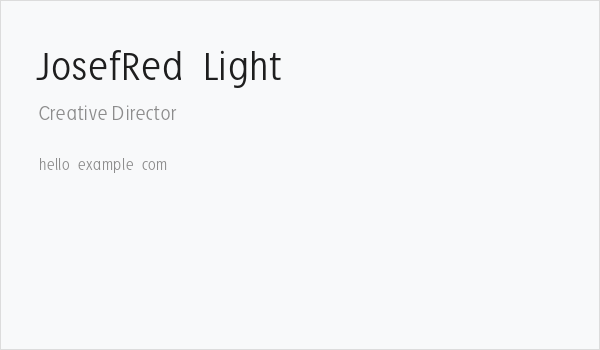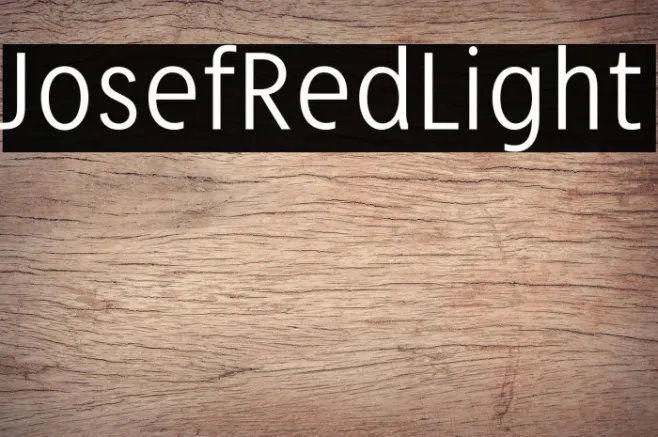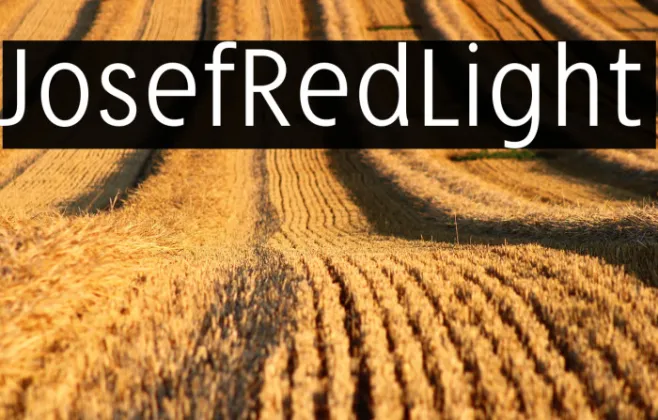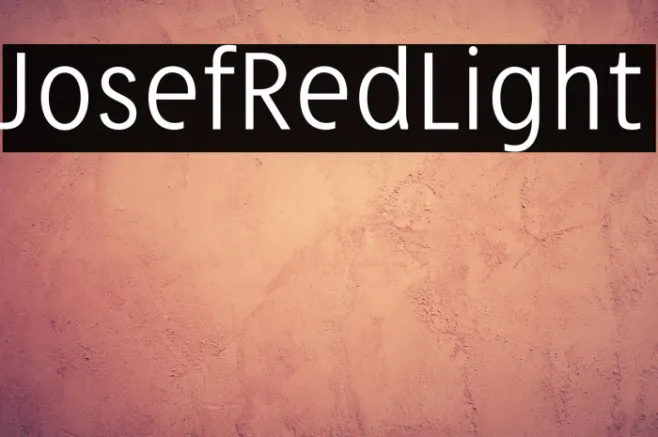
JosefRed-Light Font
JosefRed-Light Description
This typeface features a clean, modern sans-serif design with a light weight, making it ideal for a variety of applications. The characters are evenly spaced with a normal width, providing excellent readability. The strokes are consistent in thickness, offering a low contrast appearance that enhances its minimalist aesthetic. The uppercase and lowercase letters maintain a uniform style, with rounded edges that add a touch of softness to the overall look. This font is versatile and can be used effectively in both digital and print media, ensuring clarity and elegance in any context.
| Proposed Projects | Ideal for web design, branding, corporate materials, and editorial layouts. |